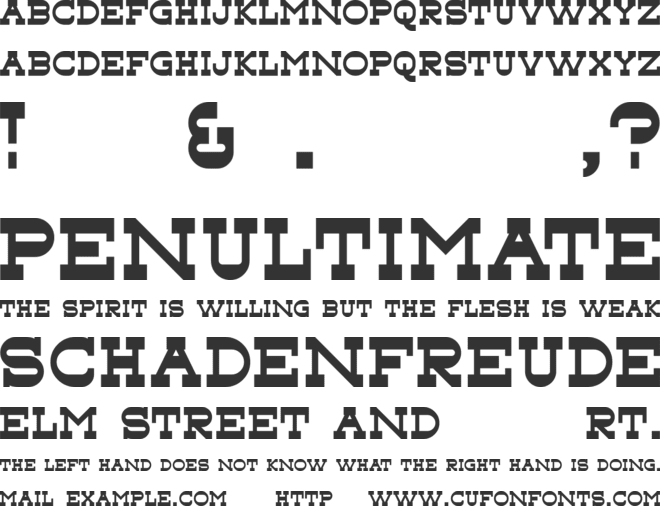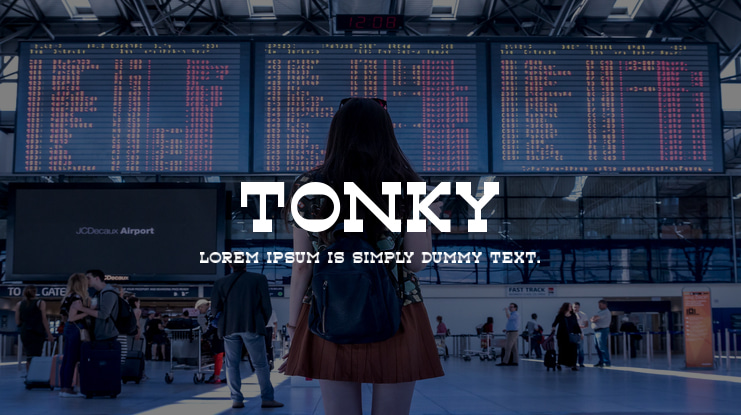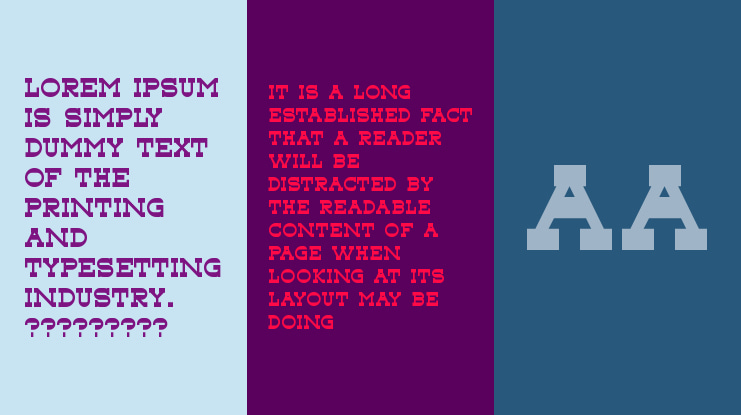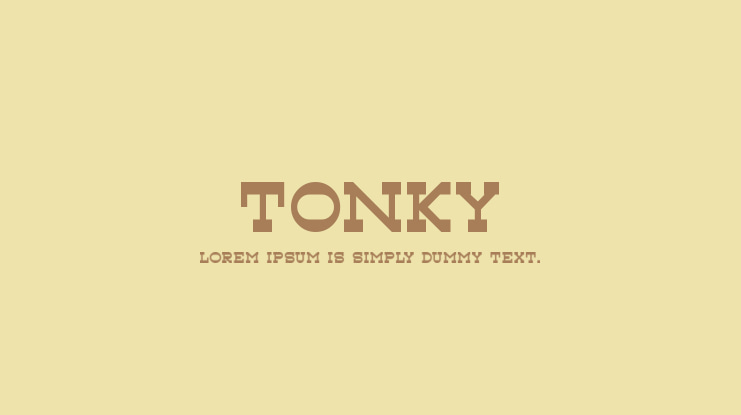
Tonky Font
I keep hashing out these half-baked fonts, don't I? Ah well. For what it's worth, here's Tonky. Interesting enough to let people use it, not interesting enough for me to bother doing numerals or such for it. Might be useful for "Wanted Dead Or Alive: George W Bush" posters or something oh-so-subversive like that. Nyeh.